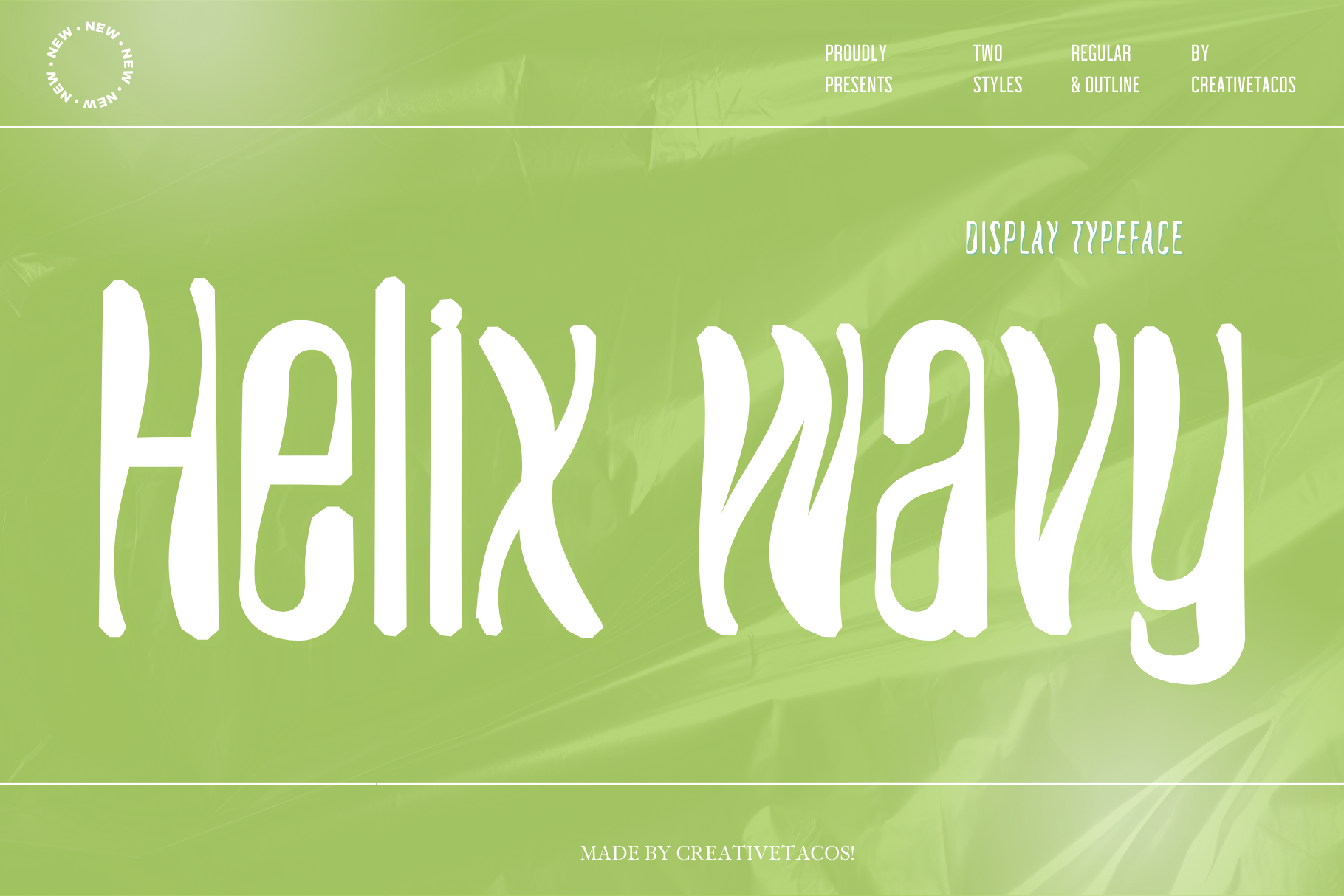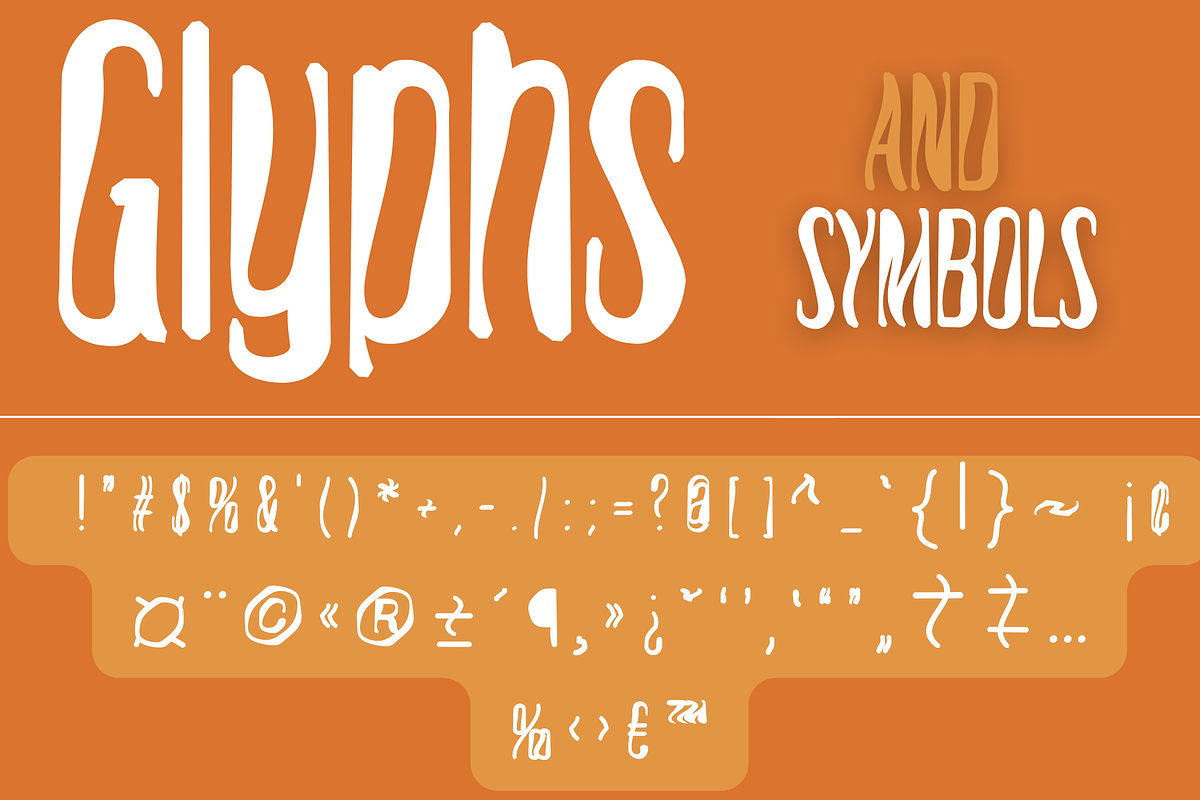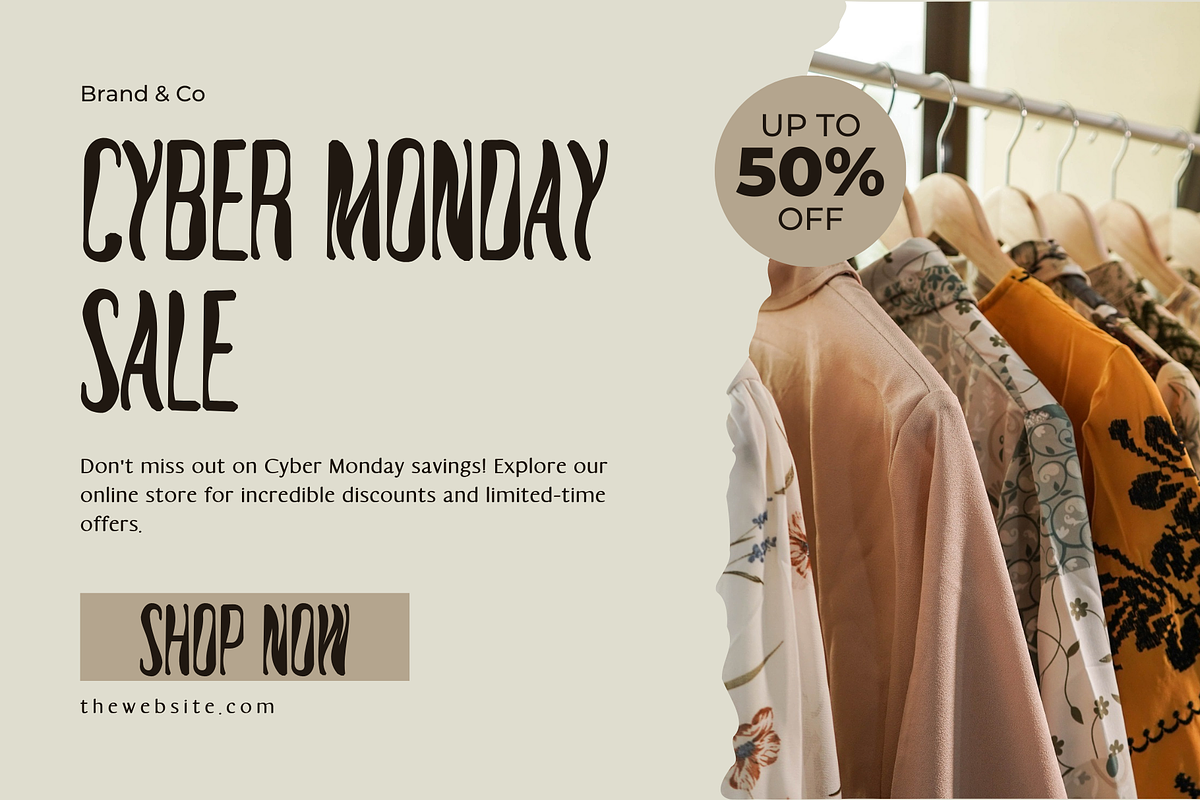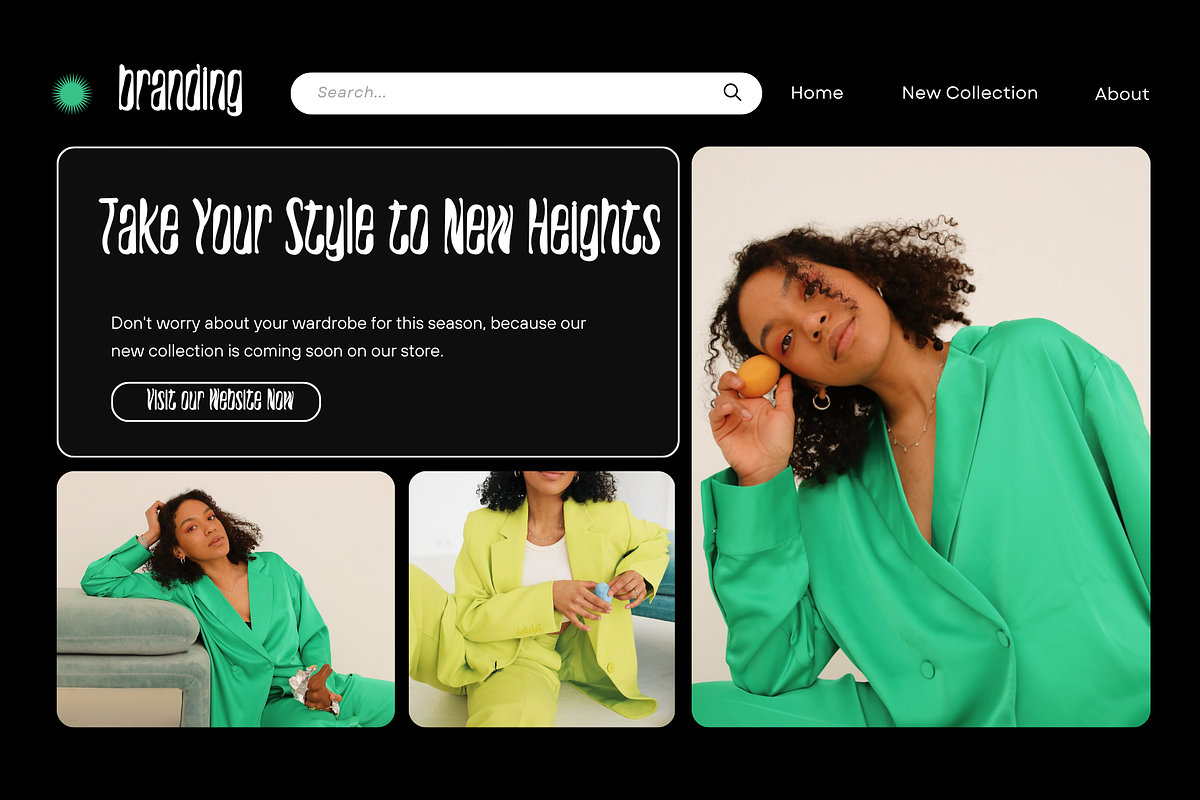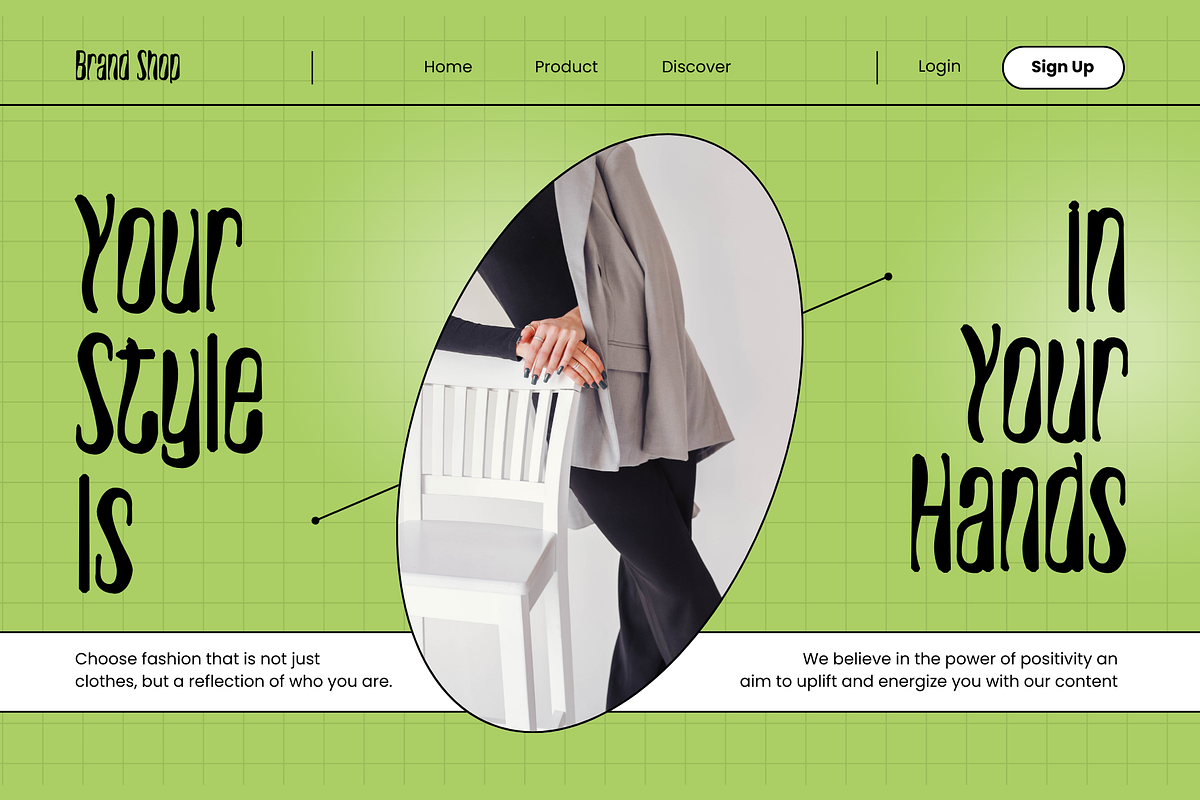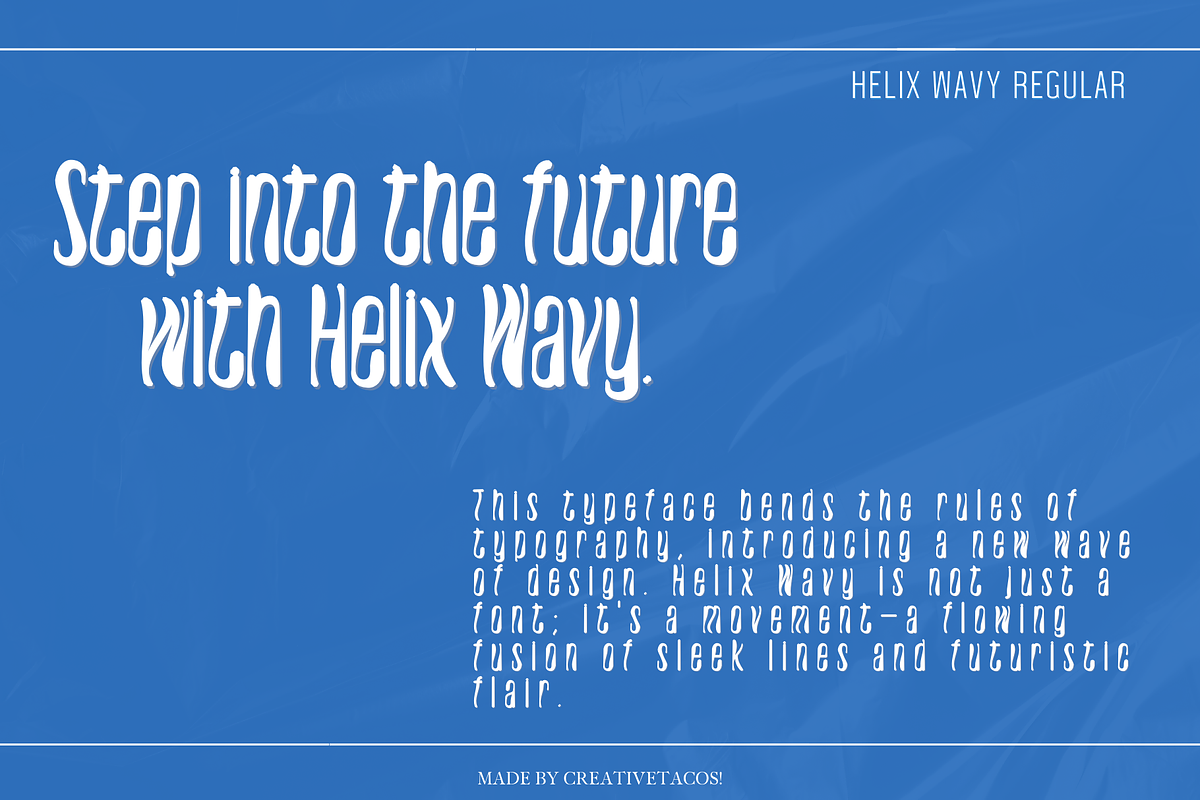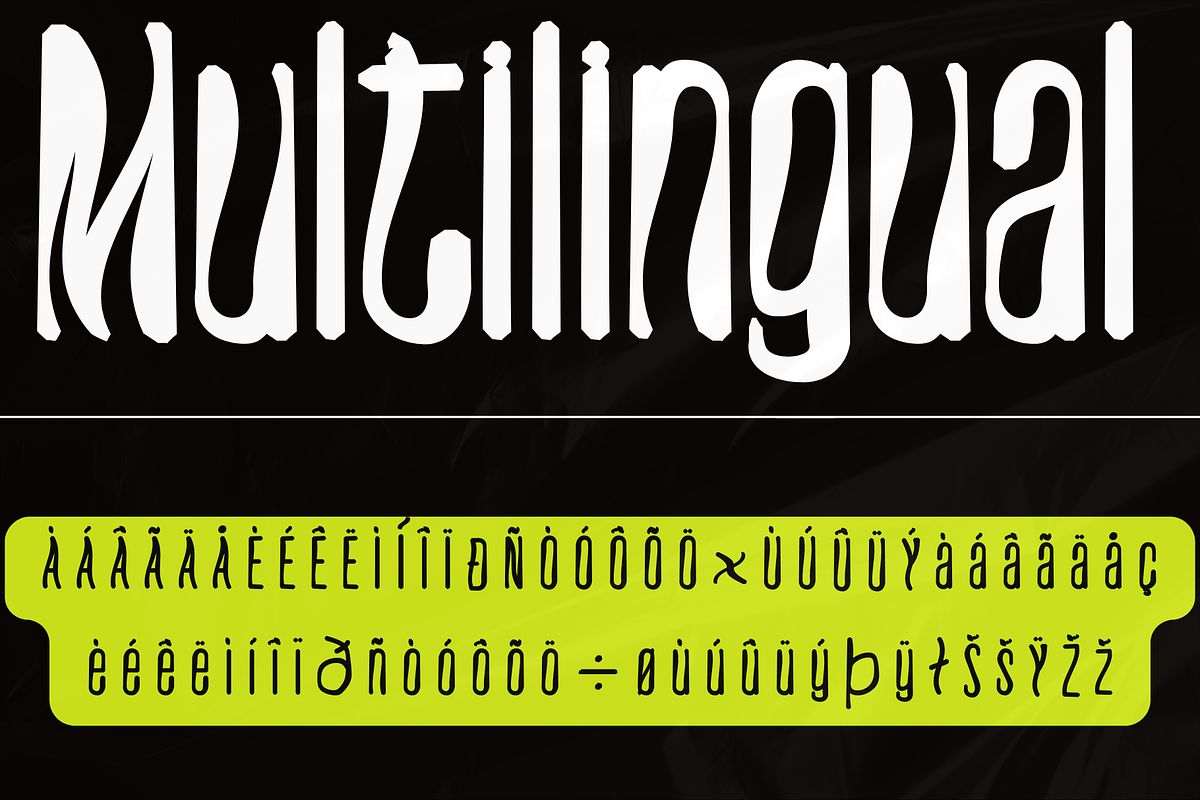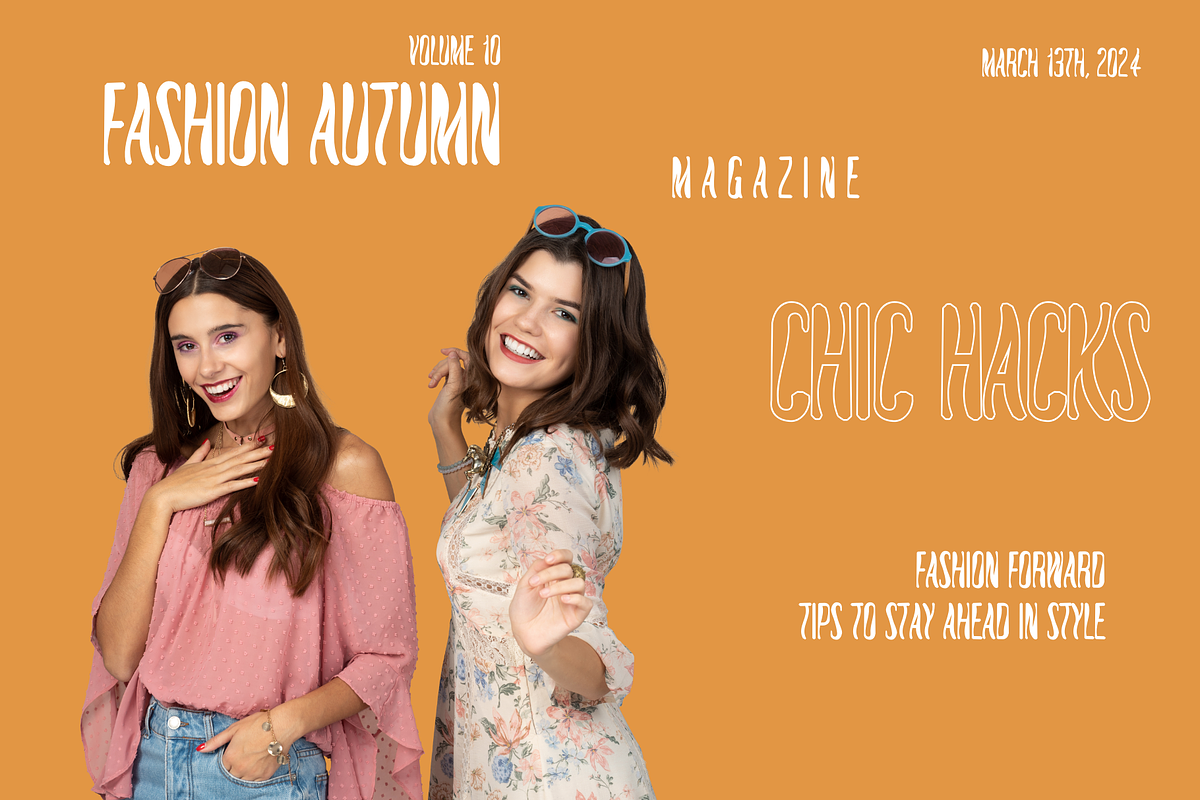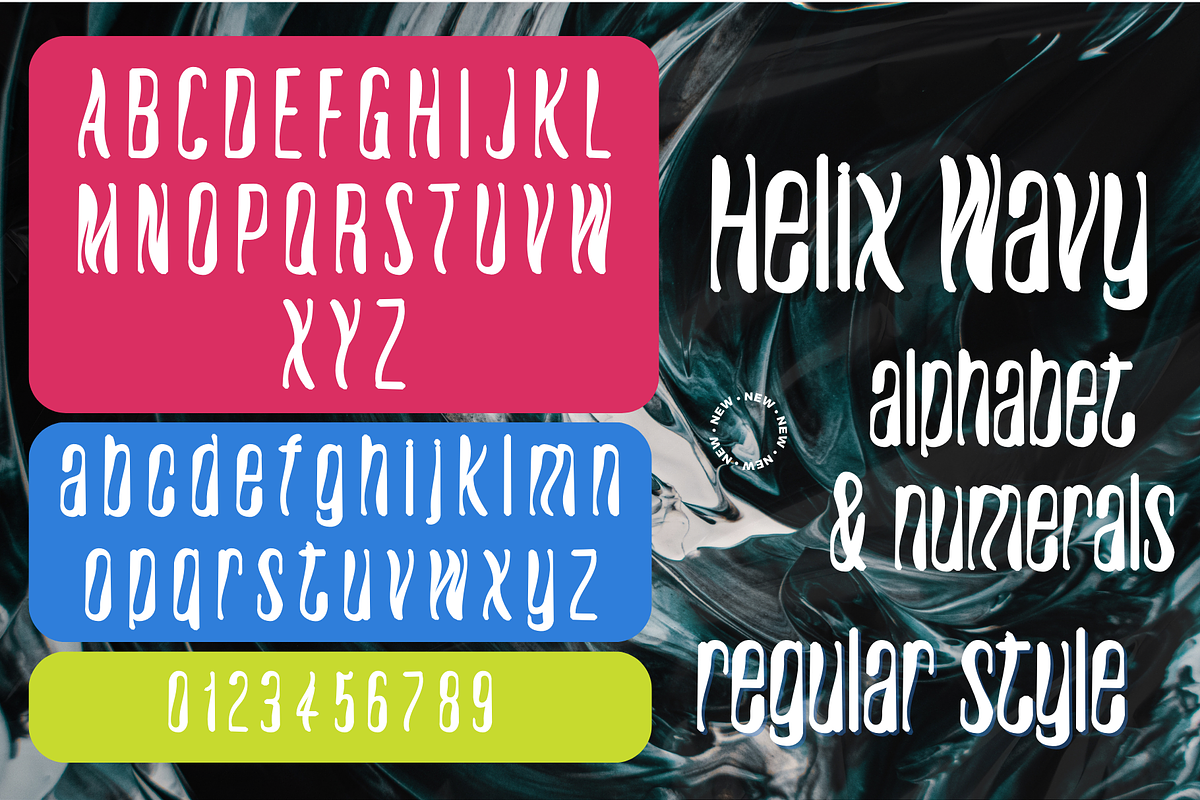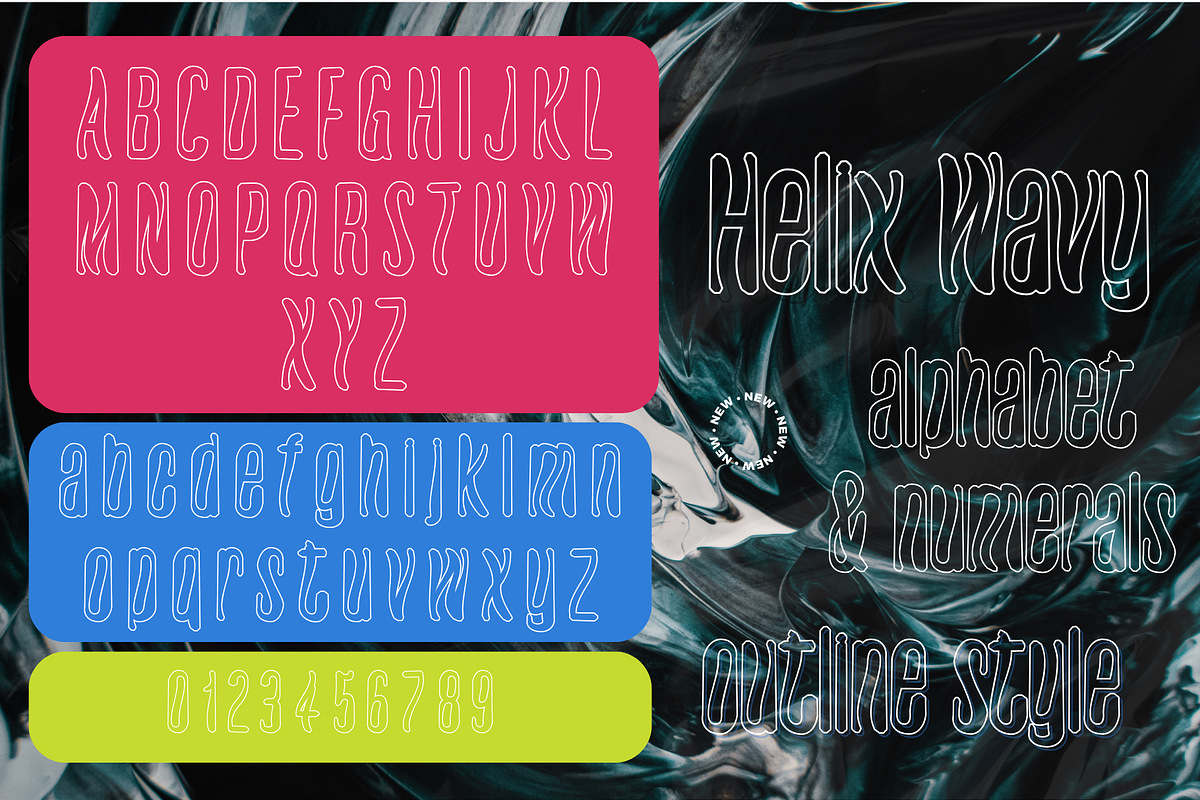
Helix Wavy - Futuristic Font
Helix Wavy - Futuristic Font is a modern and cool font with a wavy pattern in each letter. It gives your designs a fresh and futuristic look, perfect for logos, titles, and other creative projects.
You can use Helix Wavy in many places. It’s great for tech-related designs, sci-fi projects, and anything that needs a modern touch. It works well in posters, social media graphics, website headers, and even on product packaging. Wherever you need a bold and unique style, Helix Wavy will make your design stand out.
Helix Wavy - Font comes packed with:
- Uppercase Letters (Uppercase)
- Small Letters (Lowercase)
- Numbers & Symbols
Here’s a sneak peek at the characters supported:
- All the letters from A-Z (uppercase and lowercase)
- All the numbers from 0-9
- All these special characters – !”#$%&'()*+,-./:;=?@[]^_`{|}~ ¡¢¤¨©«®±´¶¸»¿ˇ‘’‚‛“”„†‡…‰‹›€™
- And a range of international characters like - ÀÁÂÃÄÅÈÉÊËÌÍÎÏÐÑÒÓÔÕÖ×ÙÚÛÜÝàáâãäåçèéêëìíîïðñòóôõö÷øùúûüýþÿłŠšŸŽž